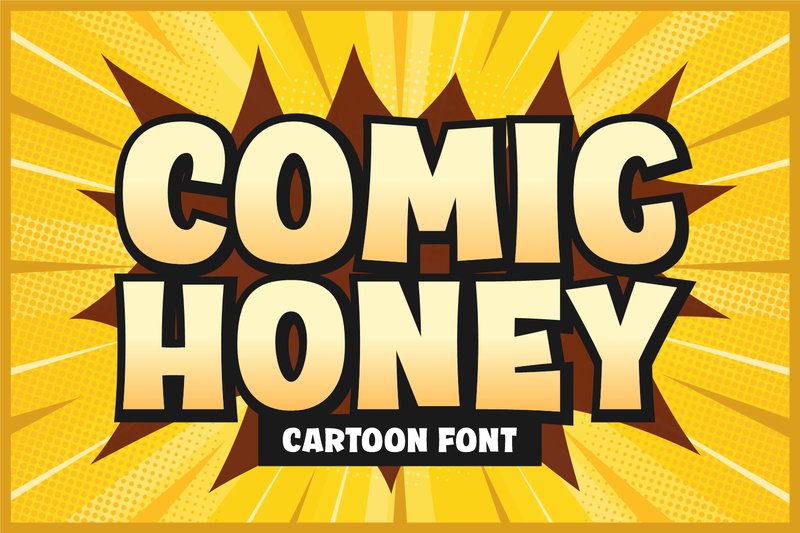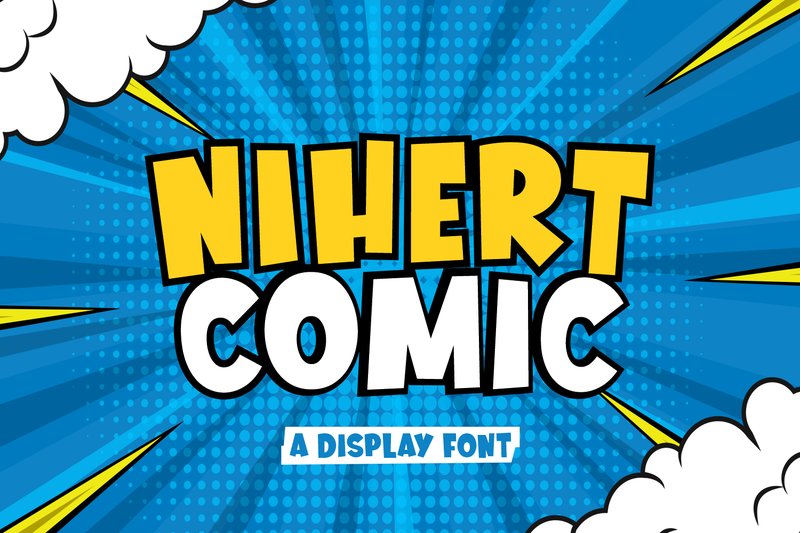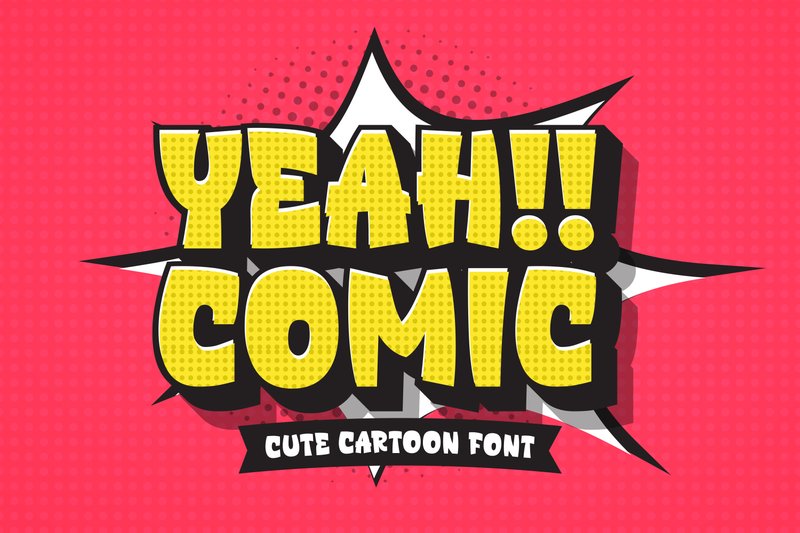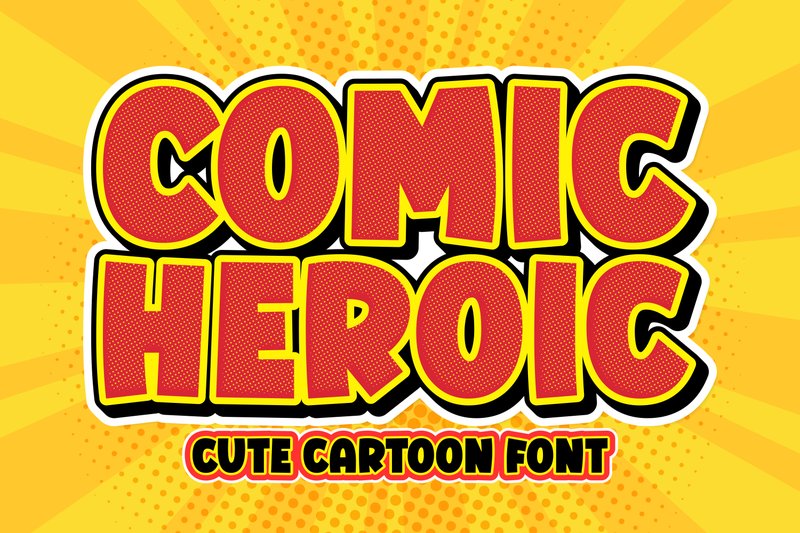
1. Comic Unique (by Creative Fabrica Fonts)
Comic Unique (by Creative Fabrica Fonts) is the antithesis of a delicate, handwritten script; where calligraphy flows, this font strikes. It swaps gentle curves for chiseled angles and raw power, delivering a visual punch that feels lifted directly from the pages of a golden-age comic book. Each letter is crafted with an unapologetic, graphic confidence, creating an immediate sense of action and cinematic scale. This isn’t just a font; it’s a statement piece, built for bold headlines and heroic narratives that demand to be seen and felt.
- Bold, all-caps letterforms for maximum impact
- Sharp, angular geometry that creates a dynamic and energetic mood
- Clean and highly legible display style
- A dramatic and powerful aesthetic ideal for impactful headlines
- Superhero-themed branding and movie posters
- Action-packed comic book titles and sound effects
- Pop culture merchandise and apparel
- Eye-catching graphics for gaming or animation content
2. Comic Honey (by Creative Fabrica Fonts)
Comic Honey (by Creative Fabrica Fonts) is a go-to choice for designers crafting vibrant children’s brands and dynamic product packaging. This bold cartoon font bursts with a fun, excitable energy that feels both friendly and impactful. Its thick, rounded letterforms and strong outlines create a classic comic-book aesthetic that’s impossible to ignore, giving any project a dynamic presence that feels fresh and full of life. It’s the kind of typeface that doesn’t just spell out a message—it shouts it with a cheerful, animated spirit.
- Thick, rounded letterforms for a soft, friendly feel
- Bold, high-impact outlines that grab attention
- Playful and exaggerated character shapes with dynamic energy
- Playful branding and logo design
- Children’s book covers and merchandise
- Eye-catching posters and social media graphics
- Fun product packaging for toys and snacks
3. Nihert Comic (by Creative Fabrica Fonts)
Nihert Comic (by Creative Fabrica Fonts) is the design equivalent of love at first sight—an instant, undeniable connection that brings a smile to your face. This thick and cheerful display font delivers that spark with chunky, cartoon-like letterforms that radiate pure, unadulterated joy. It feels like a warm hug from a beloved animated character, making it a go-to for designs that need to feel approachable, fun, and full of life. It’s an incredibly friendly asset that infuses any creative project with a fresh burst of playful energy.
- Thick, chunky letterforms that command attention
- A distinctly cheerful and friendly personality
- A bold, cartoon-inspired aesthetic
- Excellent readability for display purposes
- Children’s books and educational materials
- YouTube thumbnails and social media graphics
- Playful branding, logos, and product packaging
- Comic strips and greeting cards
4. Yeah Comic (by Creative Fabrica Fonts)
Yeah Comic (by Creative Fabrica Fonts) is a fantastic example of the joyful, user-friendly typefaces that Creative Fabrica Fonts consistently delivers. This font radiates pure, unadulterated fun with its bubbly, cartoon-inspired letterforms. It’s a design that doesn’t take itself too seriously, making it an instant go-to for projects that need a dose of charm and lighthearted personality. The slightly irregular strokes and rounded terminals give it a handcrafted feel, ensuring your text feels approachable and full of positive energy, perfect for making a friendly, modern statement.
- Bubbly and rounded character shapes
- Playful, cartoon-inspired style
- Hand-drawn feel for added charm
- Bold display weight for high visibility
- Children’s book titles and apparel
- Engaging social media graphics and quotes
- Branding for toy stores or kids’ cafes
- Custom crafting projects with a fun vibe
5. Comic Heroic (by Creative Fabrica Fonts)
Comic Heroic (by Creative Fabrica Fonts) With its thick and chunky characters, this font flexes its muscles like a classic caped crusader, delivering typography that feels both powerful and endearingly cute. The superhero-inspired design creates an immediate sense of action and fun, making it a go-to for designs that need to command attention without being intimidating. Its friendly but bold presence ensures your message lands with a heroic impact.
- Thick, chunky letterforms that create a bold footprint.
- A fun, superhero-inspired aesthetic full of energy.
- Combines a powerful presence with a cute, approachable feel.
- An all-caps display font perfect for impactful headlines.